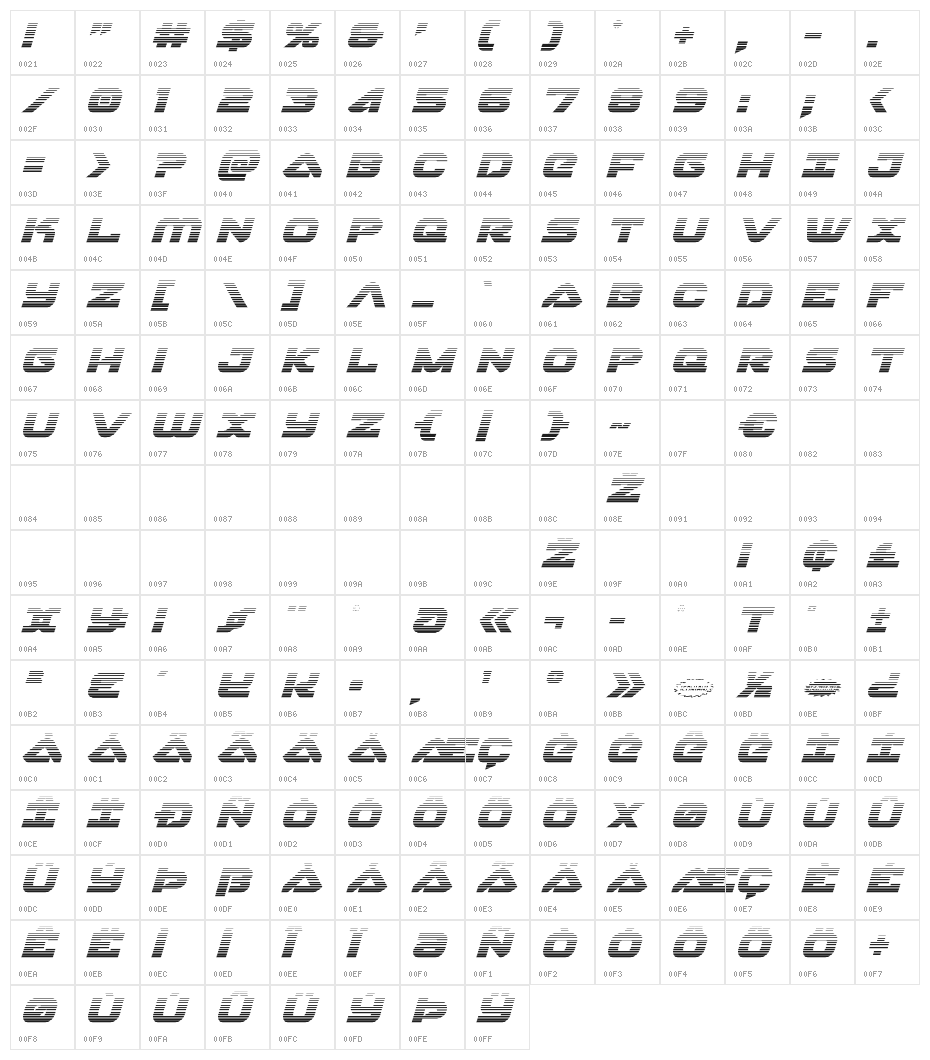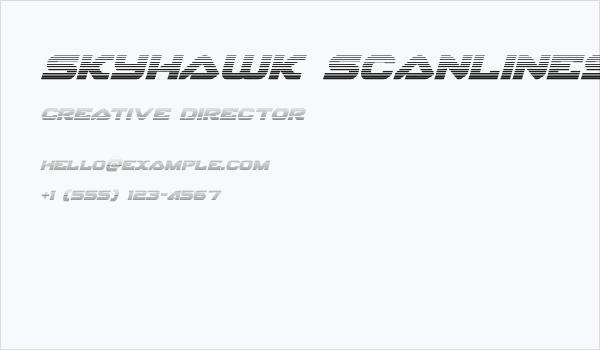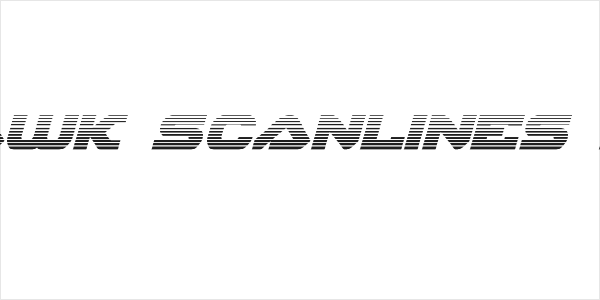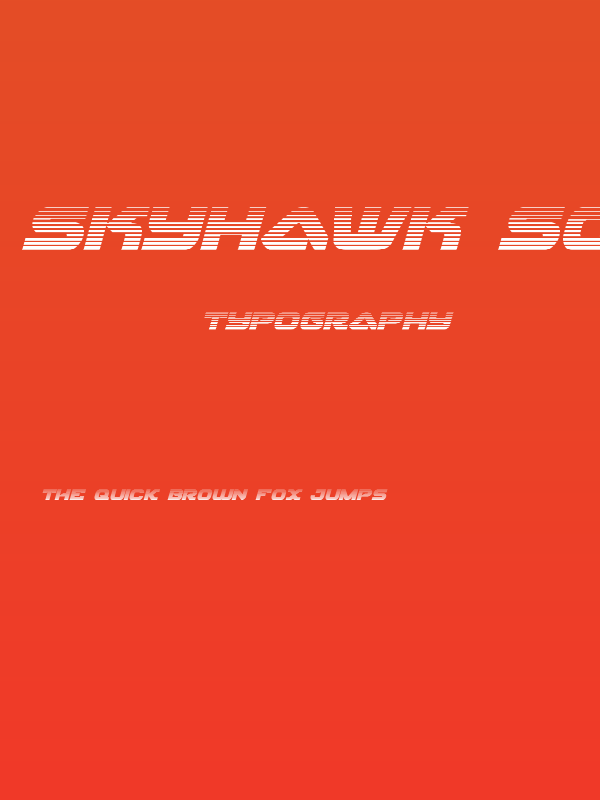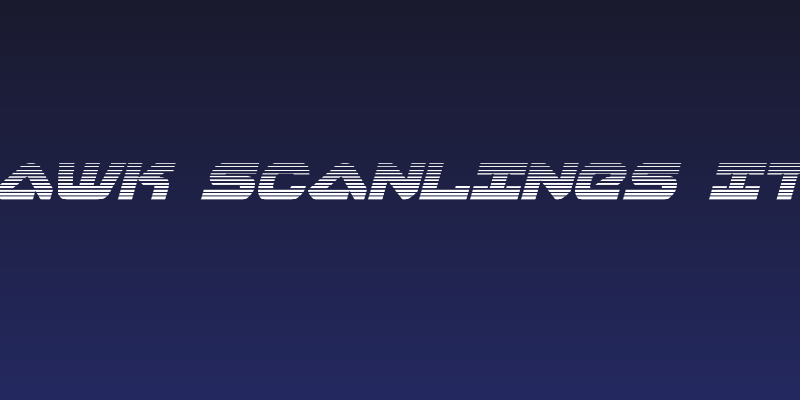
Skyhawk Scanlines Italic Font
Skyhawk Scanlines Italic Description
This font features a futuristic and dynamic design with a scanline effect that gives it a digital, high-tech appearance. The characters are italicized, adding a sense of motion and speed. Each letter is composed of horizontal lines that create a unique visual texture, making it stand out in digital and print media. The uppercase and lowercase letters maintain a consistent style, while the numbers and special characters complement the overall aesthetic. This font is ideal for projects that require a modern and edgy look, such as technology branding, video game titles, or sci-fi themed designs.
| Proposed Projects | Ideal for technology branding, video game titles, sci-fi themed designs, and digital media. |